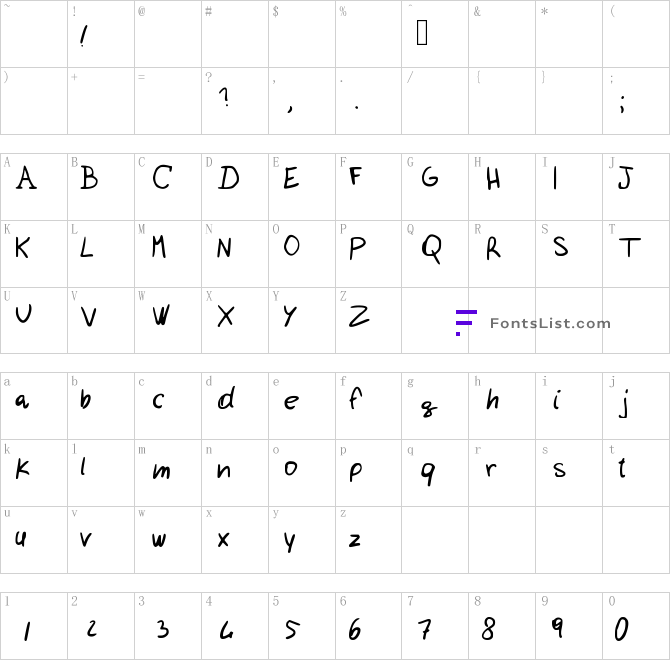
- Font Name:Calligrafia Sara
Calligrafia-Sara.ttf is a very beautiful artistic font, Calligrafia-Sara.ttf is widely used in the design and printing of various books and pictures,Calligrafia-Sara.ttf has a strong visual impact,Calligrafia-Sara.ttf is a commonly used font in newspapers, magazines and books, and is used in posters, e-commerce Poster design, store design, logo design, font design and other fields.Calligrafia-Sara.